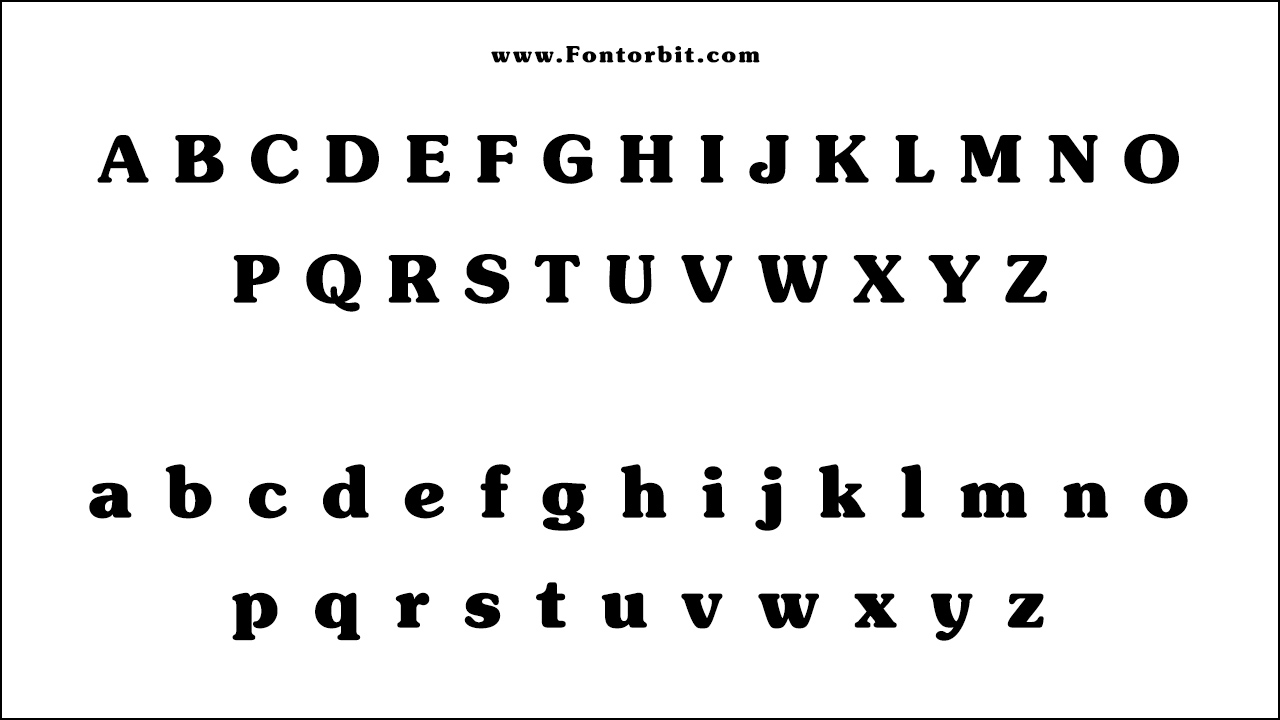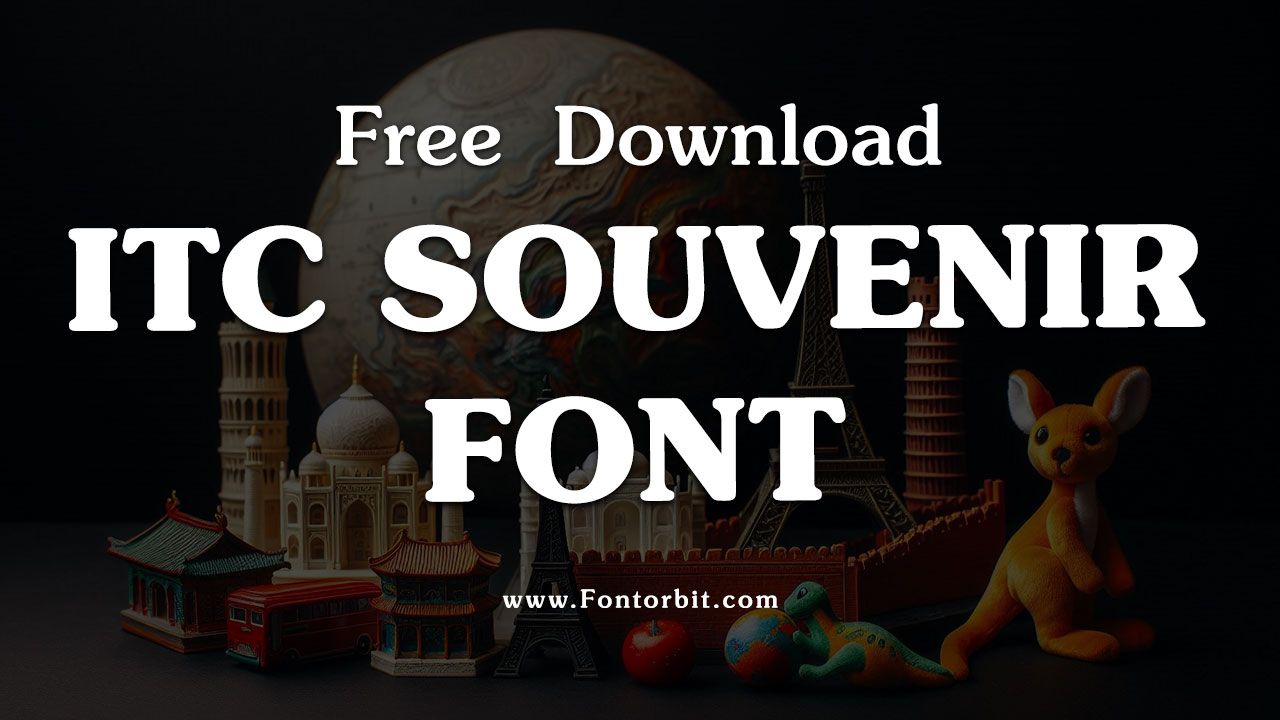
The ITC Souvenir font, originally designed by Morris Fuller Benton in 1914 and later revived by Ed Benguiat in 1967, is a charming serif typeface with a unique blend of softness and elegance.
It was published by the International Typeface Corporation (ITC) and became widely popular in the 1970s. The typeface is part of the Oldstyle serif classification and is notable for its rounded and friendly appearance, making it ideal for both display and text settings.
ITC Souvenir Family Includes
The ITC Souvenir font family is versatile, featuring a range of weights and styles to suit various design needs. It includes:
- ITC Souvenir Std Light
- ITC Souvenir Std Light Italic
- ITC Souvenir Std Medium
- ITC Souvenir Std Medium Italic
- ITC Souvenir Std Demi
- ITC Souvenir Std Demi Italic
- ITC Souvenir Std Bold
- ITC Souvenir Std Bold Italic
Notable Uses Of ITC Souvenir
Due to its friendly and approachable style, the ITC Souvenir font has been used in a variety of settings, from advertising to branding. It was prevalent in the 1970s and continues to be used in modern designs where a retro or soft aesthetic is desired.
- Branding materials
The ITC Souvenir font is a timeless choice for designers looking to evoke a sense of warmth and nostalgia in their work. Its versatility across weights and styles makes it a reliable option for various applications. The lighter weights are also suitable for short blocks of text.
1.Who Designed The ITC Souvenir?
It was originally designed by Morris Fuller Benton in 1914 and later revived by Ed Benguiat in 1967.
2.What Type Of Font Is ITC Souvenir?
It is an Oldstyle serif typeface.
4.Where Can I Use ITC Souvenir?
It suits both digital and print, particularly in headlines, posters, and branding.
5.What Are Some Similar Fonts To ITC Souvenir?
Alternatives include Cooper, ITC Bookman, and P22 Mackinac.
6.What Is The Best Pairing For ITC Souvenir?
It pairs well with ITC Avant Garde Gothic for a balanced design.
7.Why Is ITC Souvenir Popular?
Its friendly, approachable design made it very popular, especially in the 1970s.
9.What Is The History Of ITC Souvenir?
It was created in the early 20th century and gained popularity after being revived in the late 1960s.
10.What Are The Notable Uses Of ITC Souvenir?
Various companies used it in branding and advertising campaigns, especially during the 1970s.